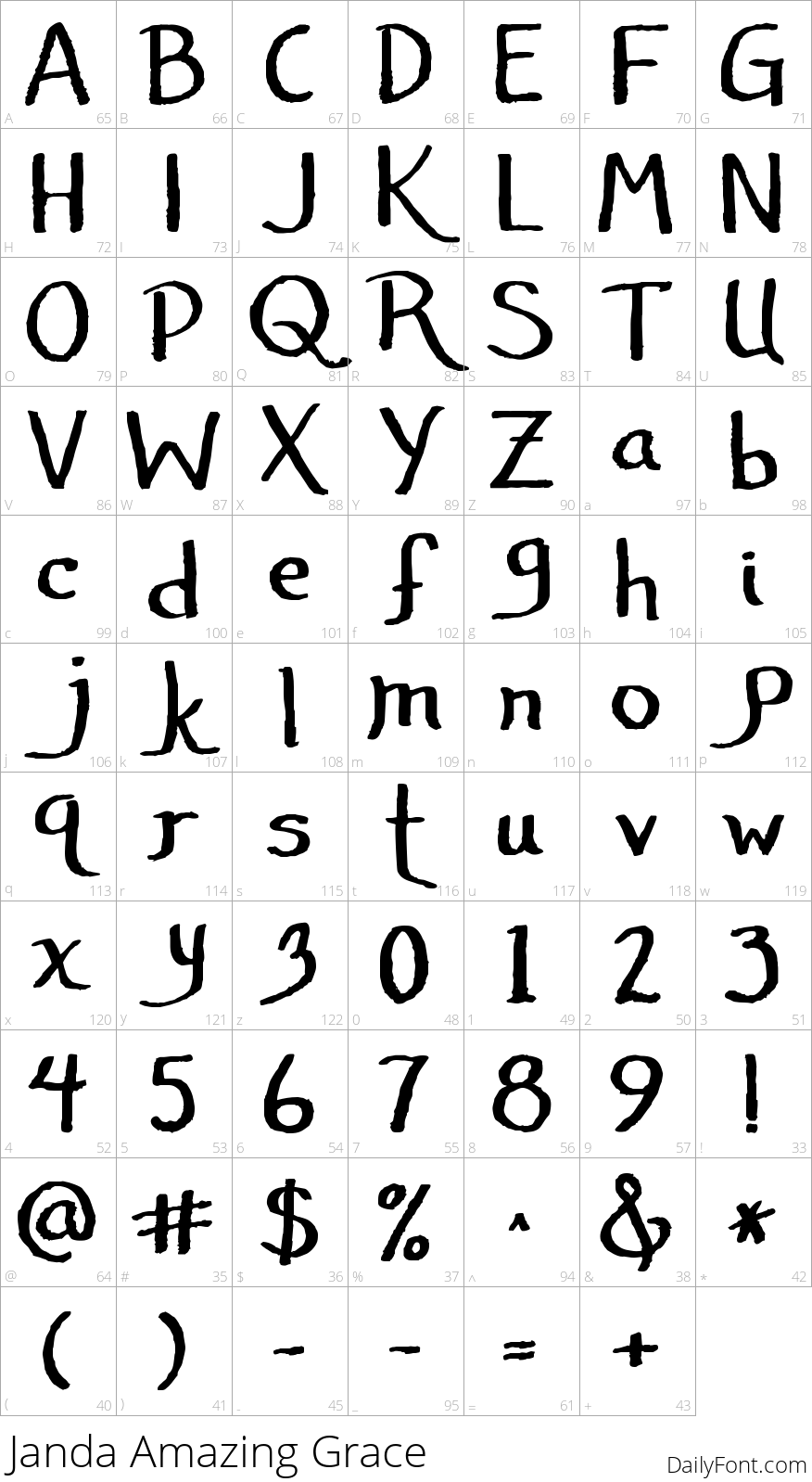
Janda Amazing Grace by Kimberly Geswein
Hand-drawn serif font with whimsical charm, ideal for wedding invitations and elegant editorial design projects.